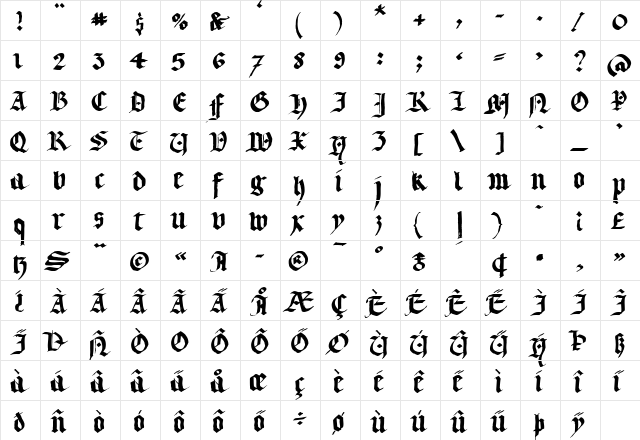
LLTextur Regular
Design Context for LLTextur Typeface
LLTextur is a composed and adaptable typeface that performs quietly and consistently across a wide range of design contexts.